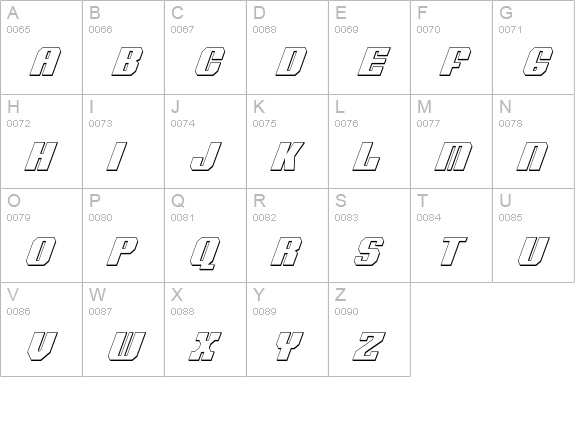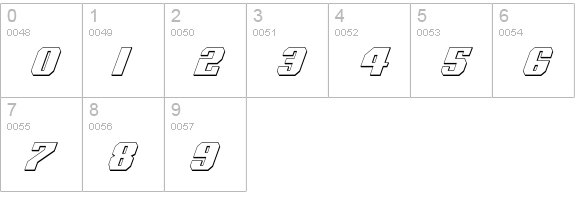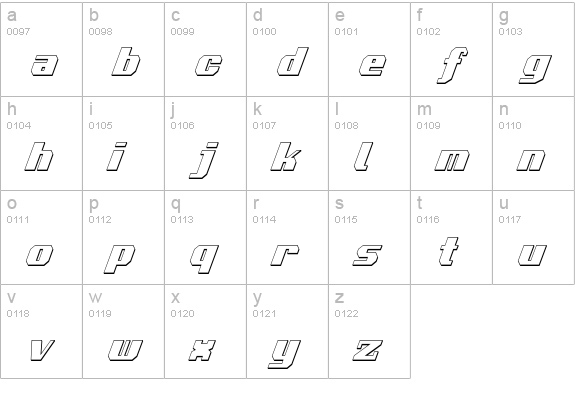
Voortrekker 3D Condensed Italic is a distinctive, condensed-width, italic variant in the Voortrekker typeface family \xE2\x80\x94 well suited to design and typography projects.
The Voortrekker 3D Condensed Italic font is a bold and dynamic typeface that exudes a sense of strength and modernity. With its sleek and futuristic design, this font is perfect for adding a contemporary touch to any project. The italicized version of the font adds a touch of elegance and sophistication, making it ideal for titles, headings, and other eye-catching elements. What sets the Voortrekker 3D Condensed Italic font apart is not only its striking design but also its accessibility. This font is available for free download at FontsMarket.com, allowing designers and creatives to easily incorporate it into their work without any cost. Whether you're working on a branding project, a website design, or any other creative endeavor, the Voortrekker 3D Condensed Italic font is sure to make a bold statement and elevate your work to the next level.